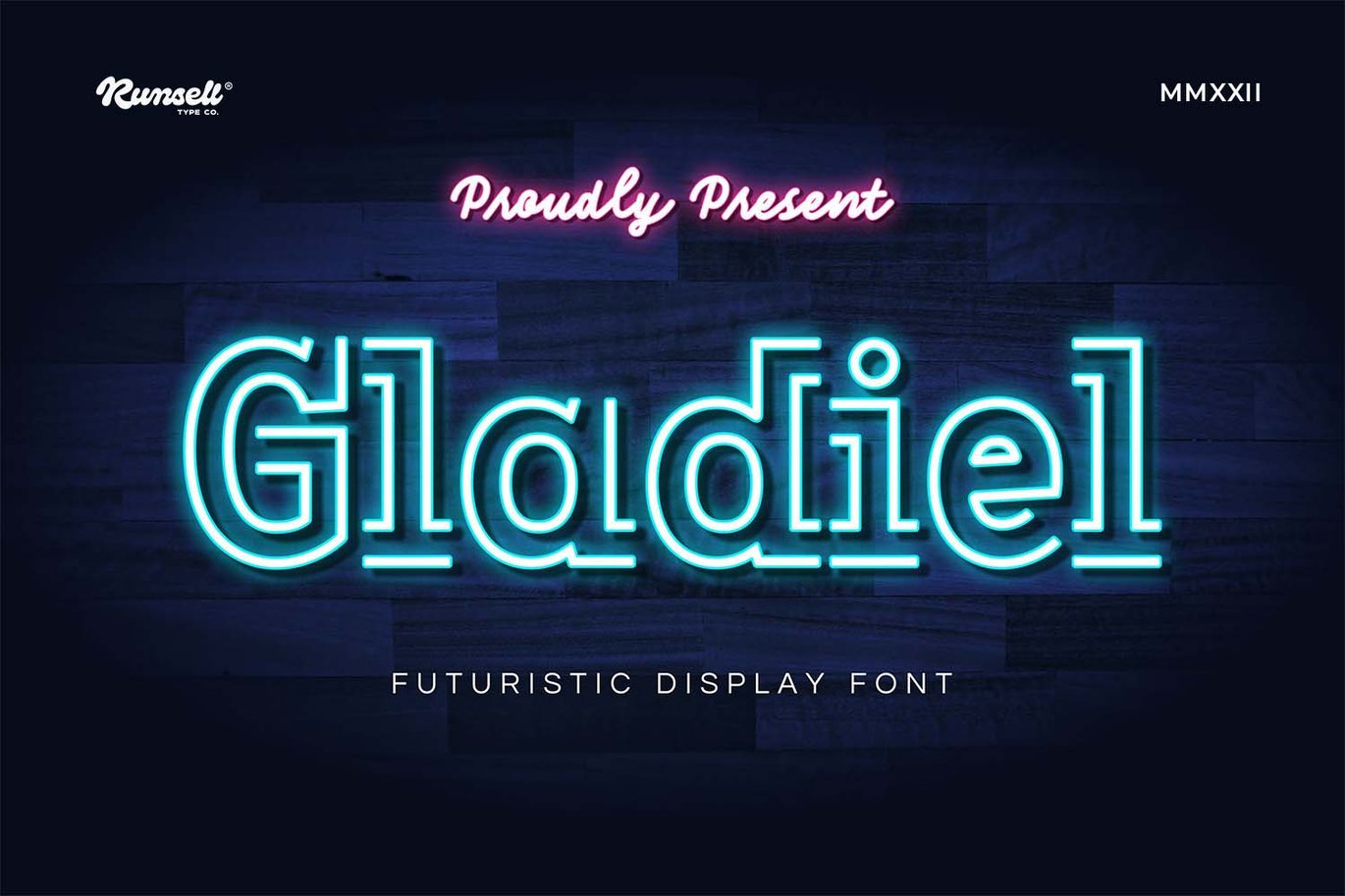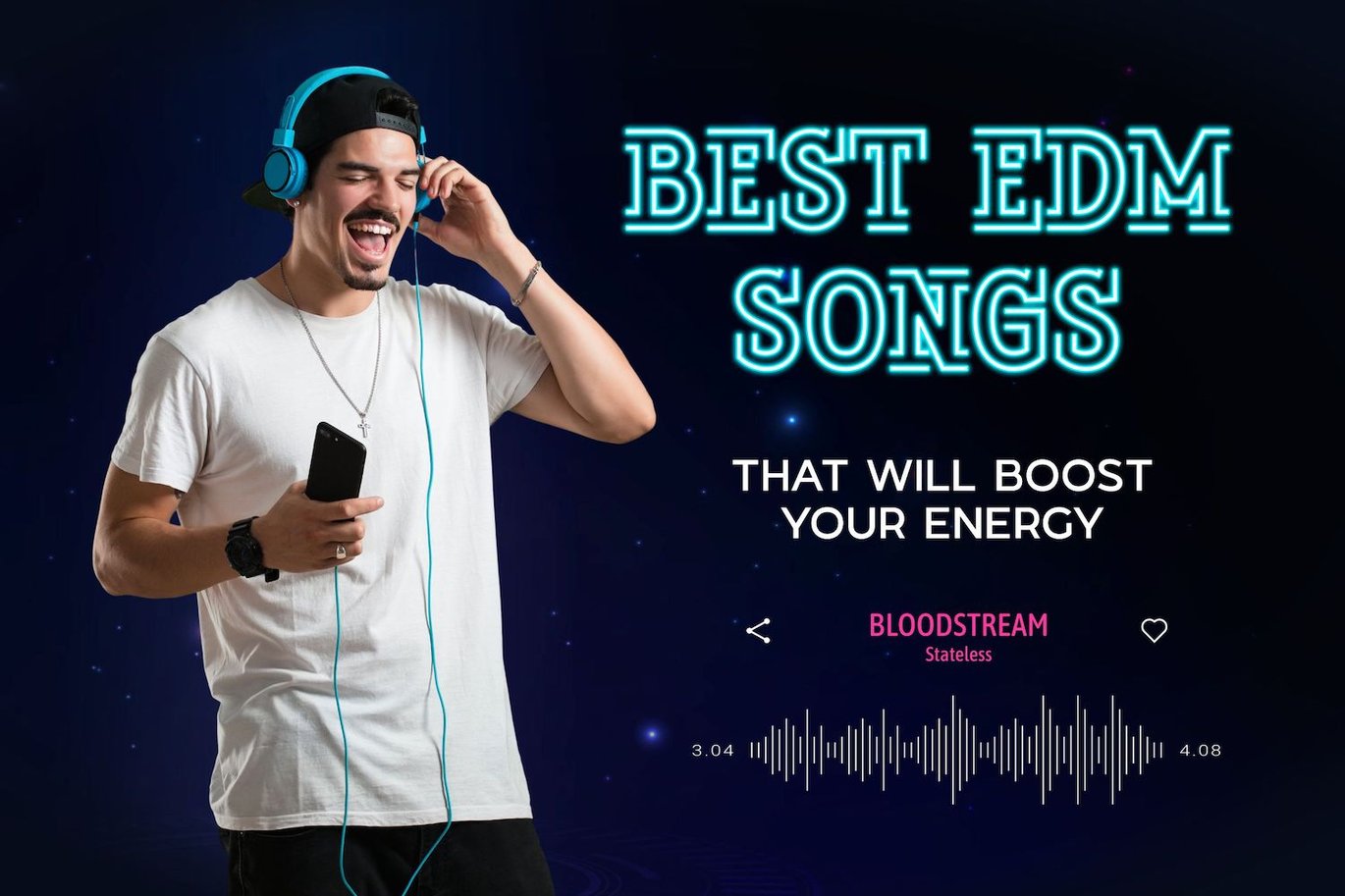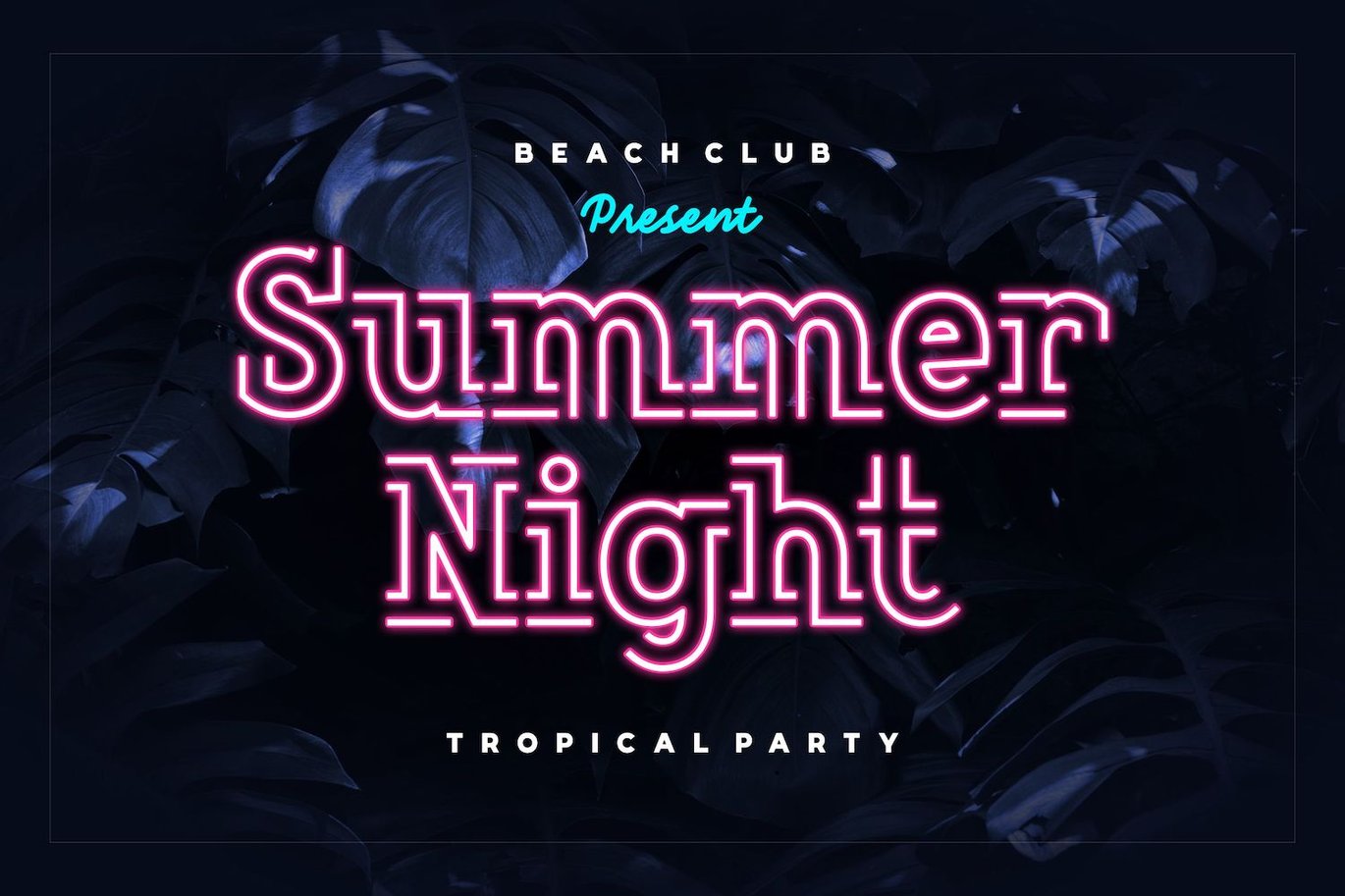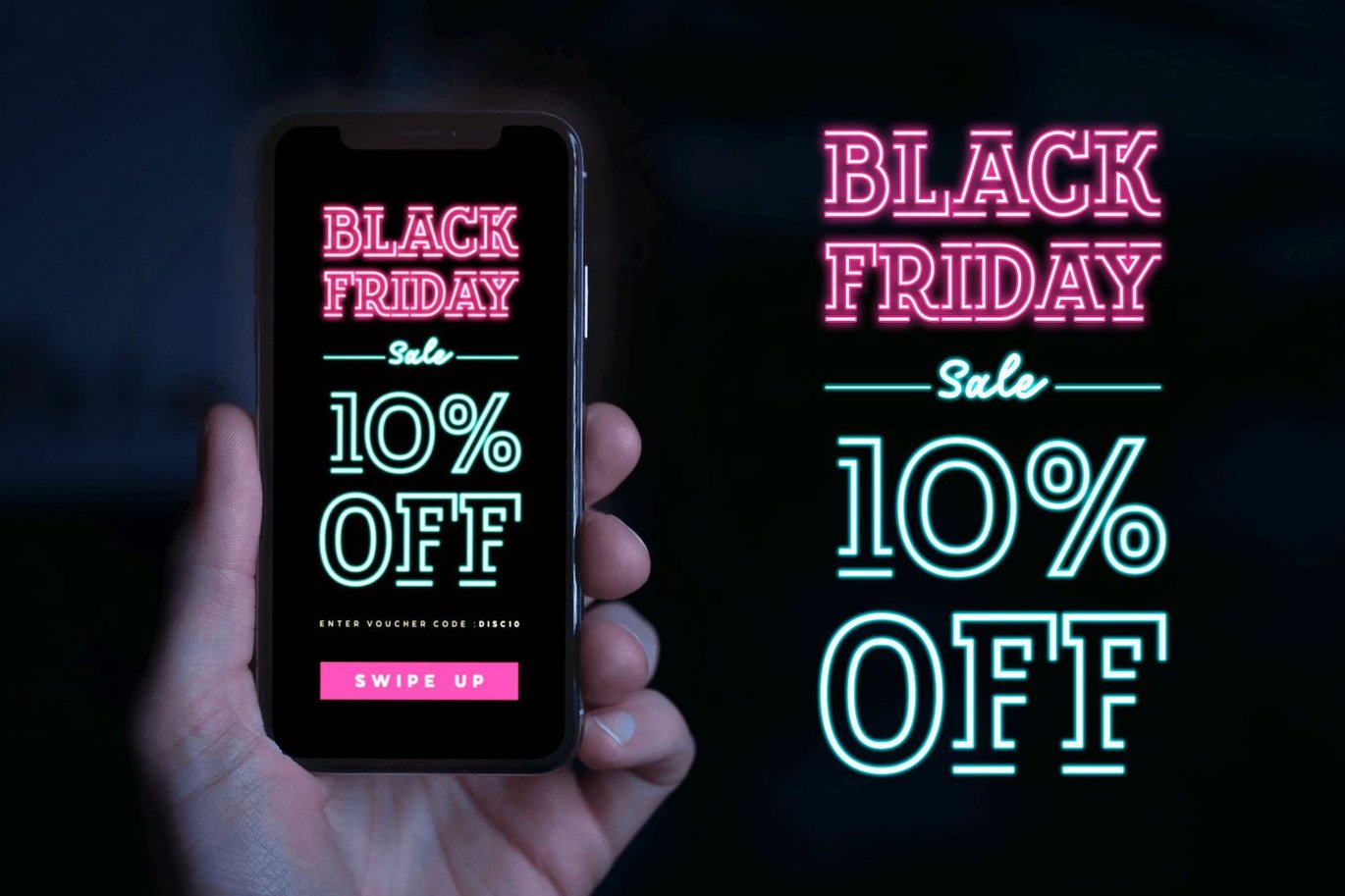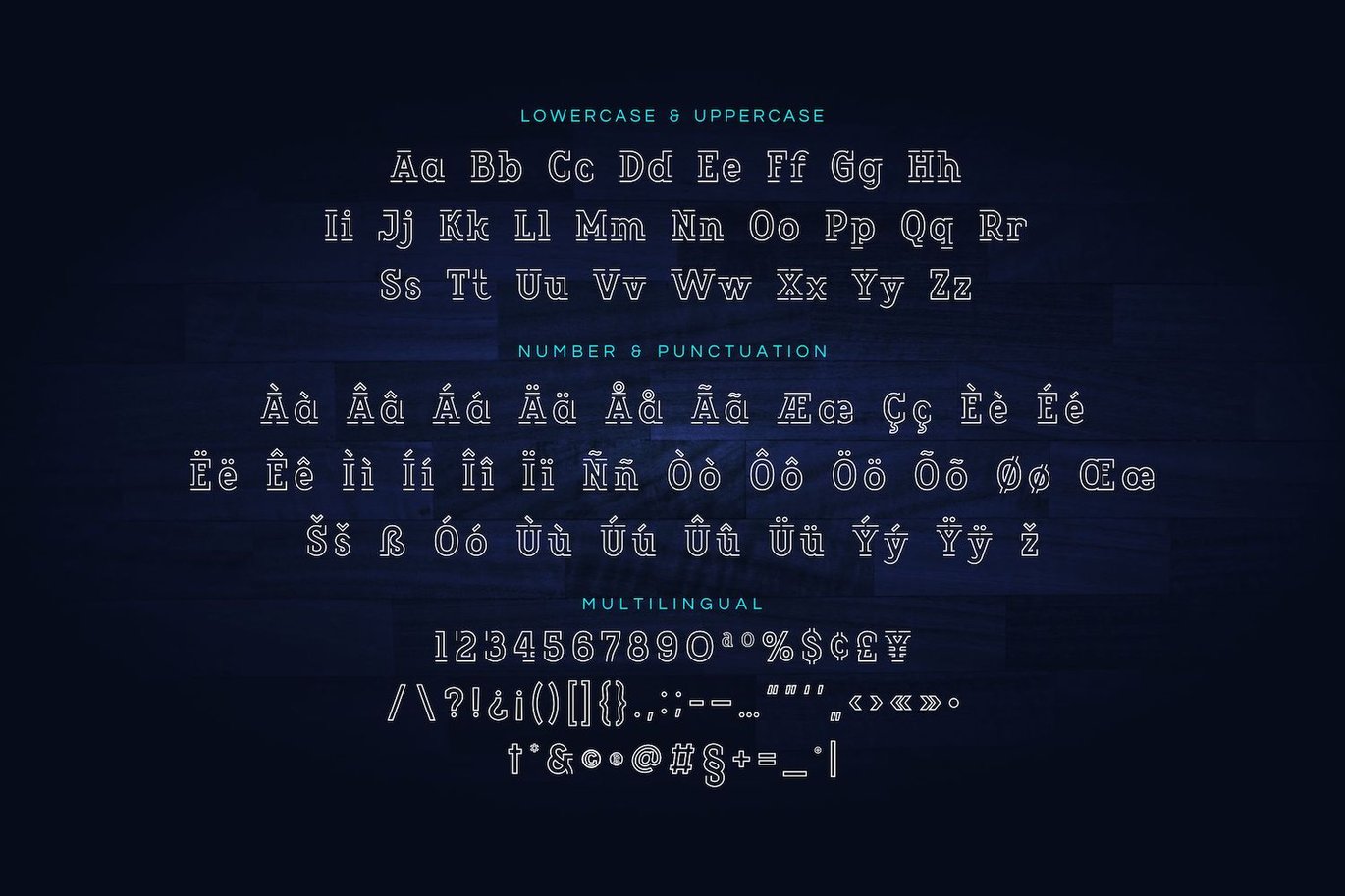
Gladiel – Neon Light Font
Presenting Gladiel Font is suitable logo, branding, book, t-shirt, magazine, website, headline and etc. Our fonts have Uppercase & Lowercase, Numeral & Punctuation, Multilingual support and Opentype Features. For Amazing designs you can mix with other fonts as a complement.